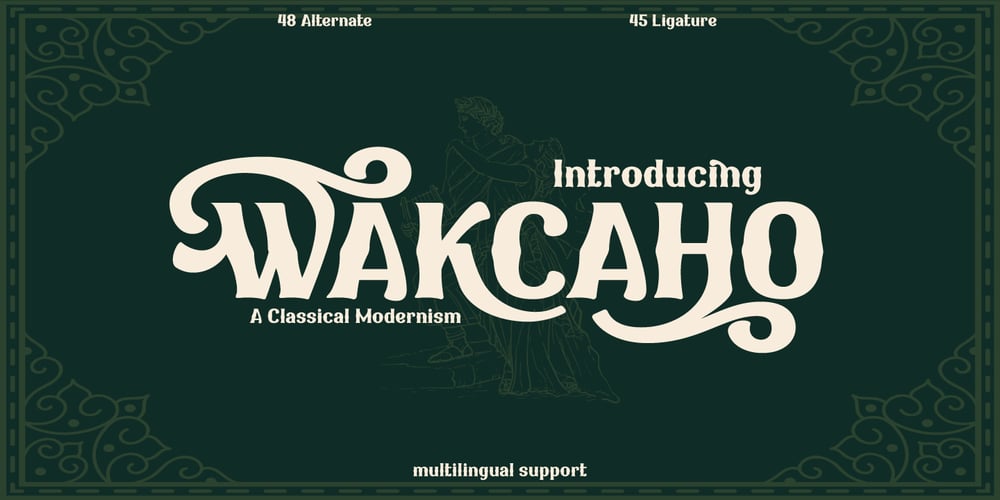
Wakcaho Font Family was designed by Rozikan and published by Twinletter. Wakcaho contains 1 styles and family package options. Wakcaho is a traditional serif typeface that is ideal for classic or retro modernist projects. With an exquisite and outstanding personality, this font will provide a memorable traditional touch to your designs.Wakcaho’s particular characteristics, like ligatures and alternatives, provide you the freedom to create unique text display variations. These typographic components can be simply combined to create distinctive and eye-catching compositions. Furthermore, Wakcaho is bilingual, allowing you to display your messages in a variety of languages all across the world. This allows you to reach an international audience while maintaining consistency in your designs regardless of language barriers.By using Wakcaho as the main font for your project, you will achieve an attractive style with a traditional vibe. Use Wakcaho right away to give your ideas a remarkable appeal and a unique visual experience.What’s Included :- File font- All glyphs Iso Latin 1- Alternate, Ligature- Simple installations- We highly recommend using a program that supports OpenType features and Glyphs panels like many Adobe apps and Corel Draw so that you can see and access all Glyph variations.- PUA Encoded Characters – Fully accessible without additional design software.- Fonts include Multilingual support